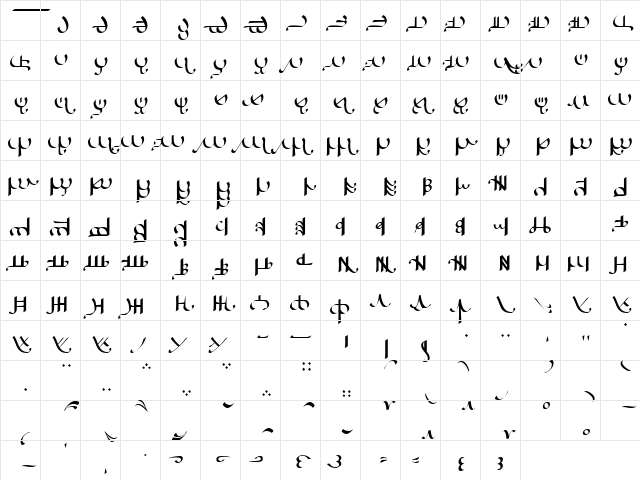
Complete Sarati Eldamar RTL BETA 3 Regular glyph index. Displaying only characters natively supported by Sarati Eldamar RTL BETA 3 Regular font.
Sarati Eldamar RTL BETA 3 is a composed and adaptable typeface that performs quietly and consistently across a wide range of design contexts.